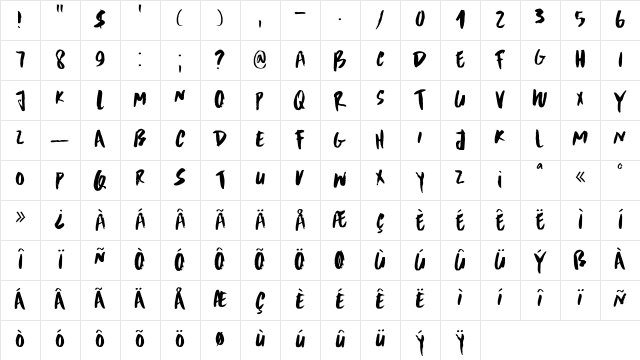
DK Scrawny Cat Regular Free Font
DK Scrawny Cat Regular
Foundry: David Kerkhoff
Designer: David Kerkhoff
Design Context for DK Scrawny Cat
DK Scrawny Cat is a composed and adaptable typeface that performs quietly and consistently across a wide range of design contexts.